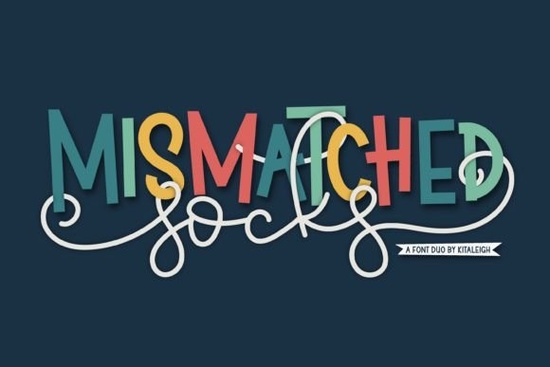
If you've ever looked for a quirky display font that doesn't take itself too seriously, Mismatched Socks might be exactly what your next project needs. It's a playful font duo that pairs bold, uppercase characters with a flowing script style giving you two complementary looks in one package. Whether you're designing invitations, crafting quotes, or building out a brand identity, this combination makes it easy to create designs that feel fun and approachable without looking messy.
What Comes in the Mismatched Socks Font Package?
This isn't just a single font file. Mismatched Socks is a font duo, which means you get two distinct typefaces that work together naturally:
- Bold uppercase display font blocky, confident letters that grab attention
- Flowing script font a softer, handwritten-style companion that adds warmth
- Alternates and bonus swashes extra letterforms and decorative flourishes for customizing your layouts
The alternates alone make a big difference. Swapping out a single letter can change the entire feel of a word, and the swashes let you add small decorative touches to the beginning or end of text. That level of flexibility is especially useful when you're creating things like wedding invitations, greeting cards, or social media graphics where every detail matters.
Who Is This Font Best For?
Mismatched Socks works well for a surprisingly wide range of creative projects. Here are some of the most common uses:
- Crafters making vinyl decals, heat transfers, or sublimation designs
- Print-on-demand sellers creating t-shirt typography, mug designs, and tote bags
- Small business owners building a brand with personality think bakeries, boutiques, or kids' shops
- Event planners designing party invitations, banners, and signage
- Content creators who want headers and graphics that stand out in a feed
The cheerful, mismatched aesthetic gives designs a handcrafted feel without actually requiring you to hand-letter anything. That's a big time-saver, especially if you're running a shop or producing content on a regular schedule.
Where Mismatched Socks stands out is in its personality. It's not trying to be sleek or corporate. It's warm, a little goofy, and genuinely fun to work with. For projects where you want to make someone smile a baby shower invite, a kids' birthday shirt, a playful logo this font duo hits the right tone.
Tips for Pairing the Two Fonts Together
Getting the most out of a font duo means understanding how to use both styles without overdoing it. A few practical tips:
- Use the bold font for your main word or phrase and the script font for a smaller tagline underneath
- Don't mix both fonts in a single word it tends to look cluttered rather than creative
- Play with scale making one font significantly larger than the other creates visual hierarchy
- Try the swashes sparingly one or two decorative touches per design is usually enough
- Test alternates on tricky letter combinations (like double letters) to find the smoothest flow
The goal is contrast, not chaos. Bold plus script already gives you natural variety, so you don't need to add much more to make a design feel complete.